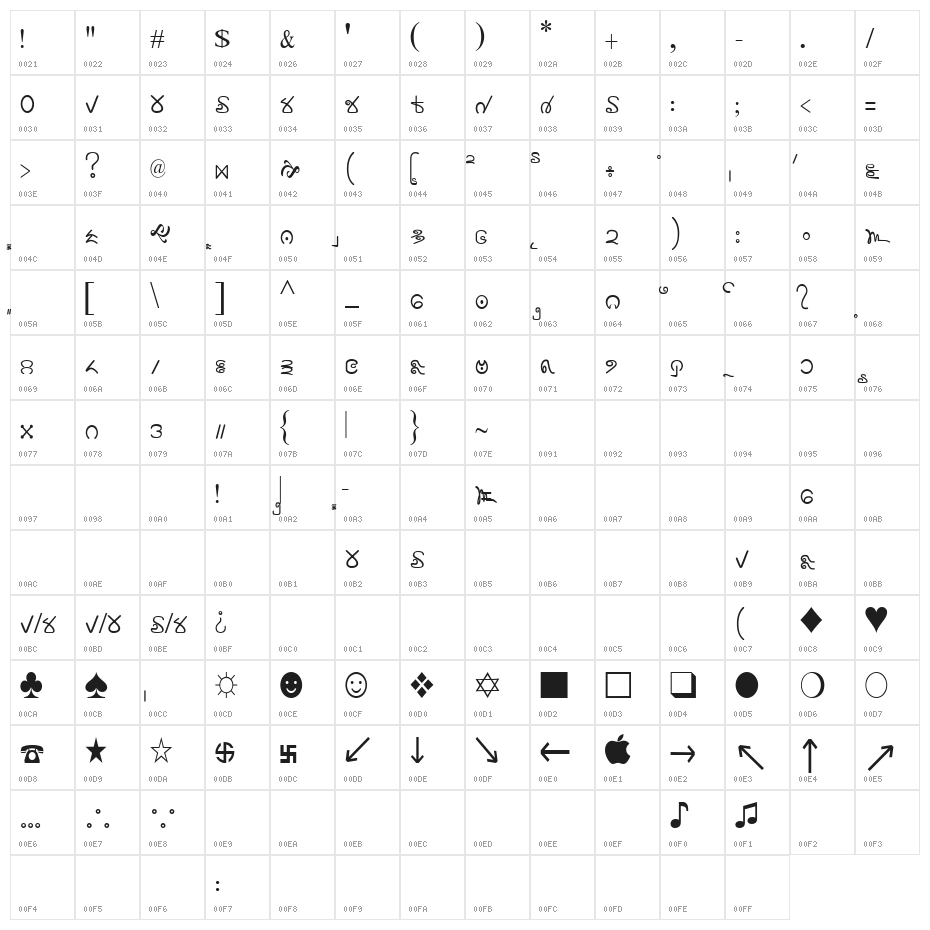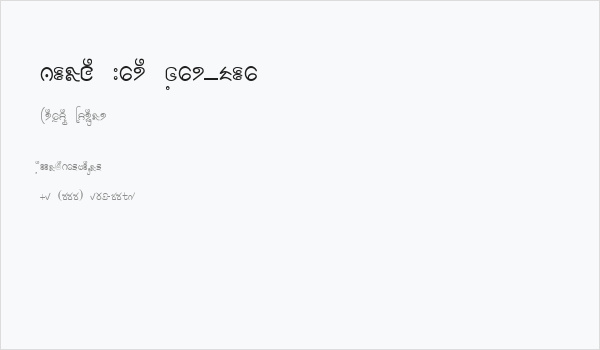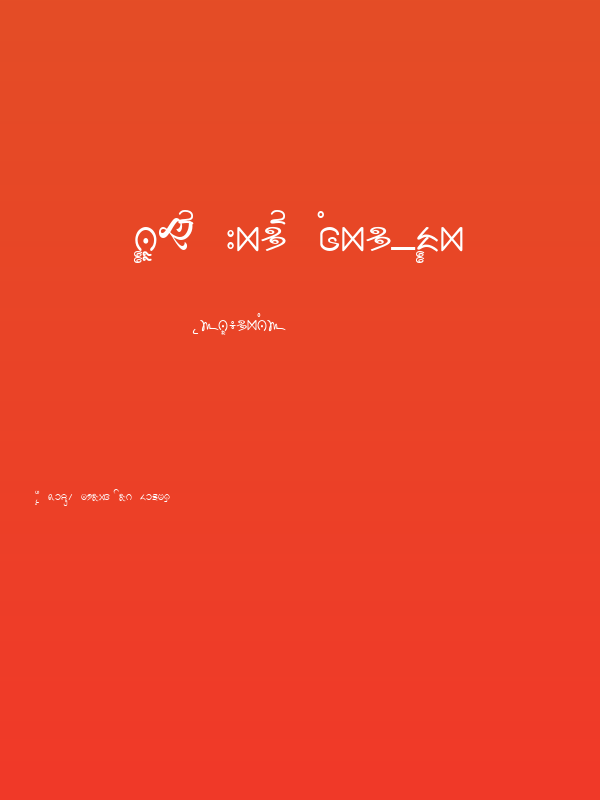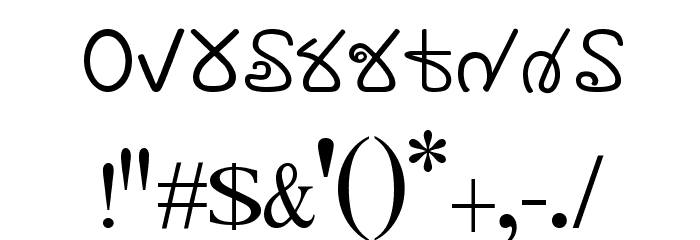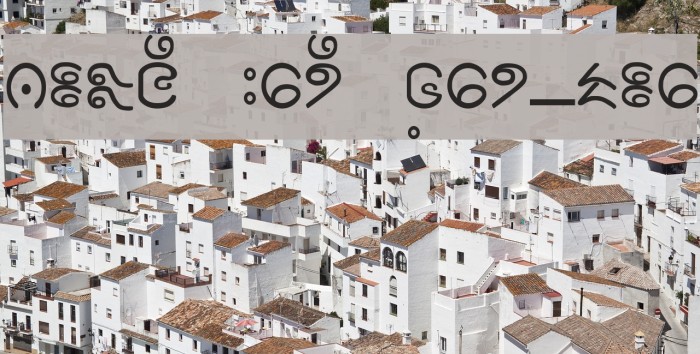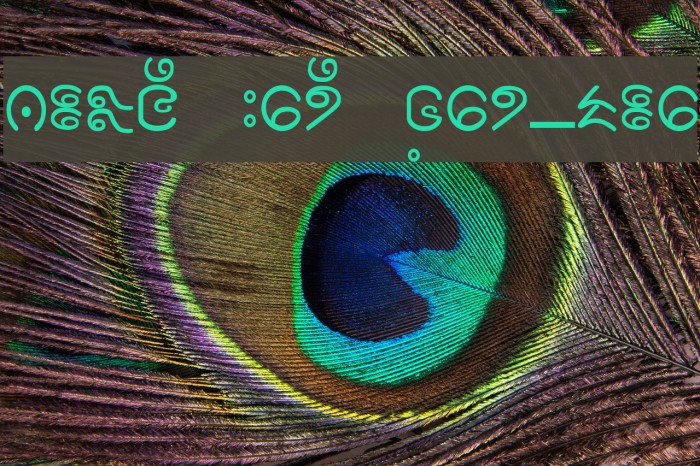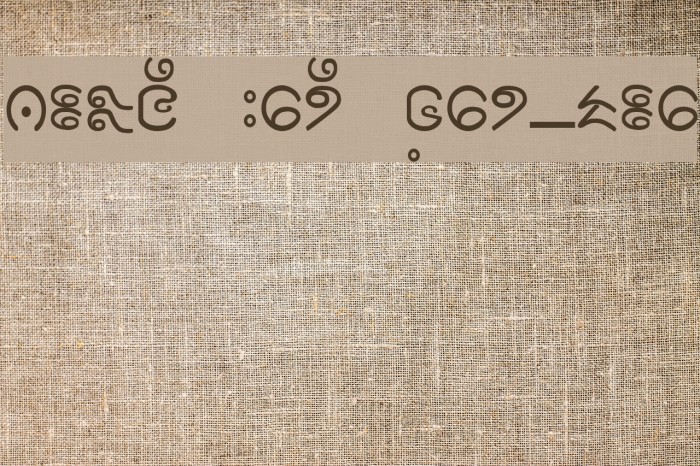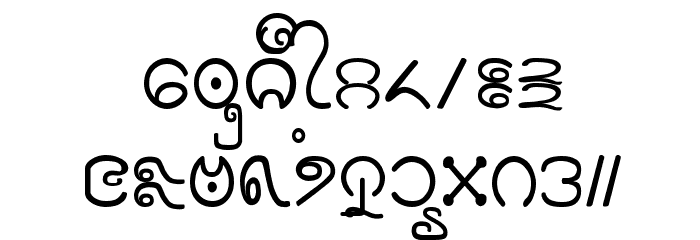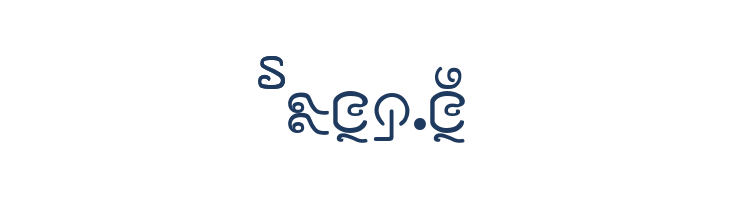
Plone Ware Shar_Mla Font
Plone Ware Shar_Mla Description
This design features a highly decorative and artistic style, characterized by intricate curves and unique shapes. The characters exhibit a playful and whimsical appearance, with each letterform displaying a distinct personality. The strokes are varied, with some elements appearing bold and others more delicate, creating a dynamic visual rhythm. The overall impression is one of creativity and expressiveness, making it suitable for projects that require a touch of individuality and flair.
| Proposed Projects | Ideal for artistic posters, creative branding, unique invitations, and expressive graphic design projects. |